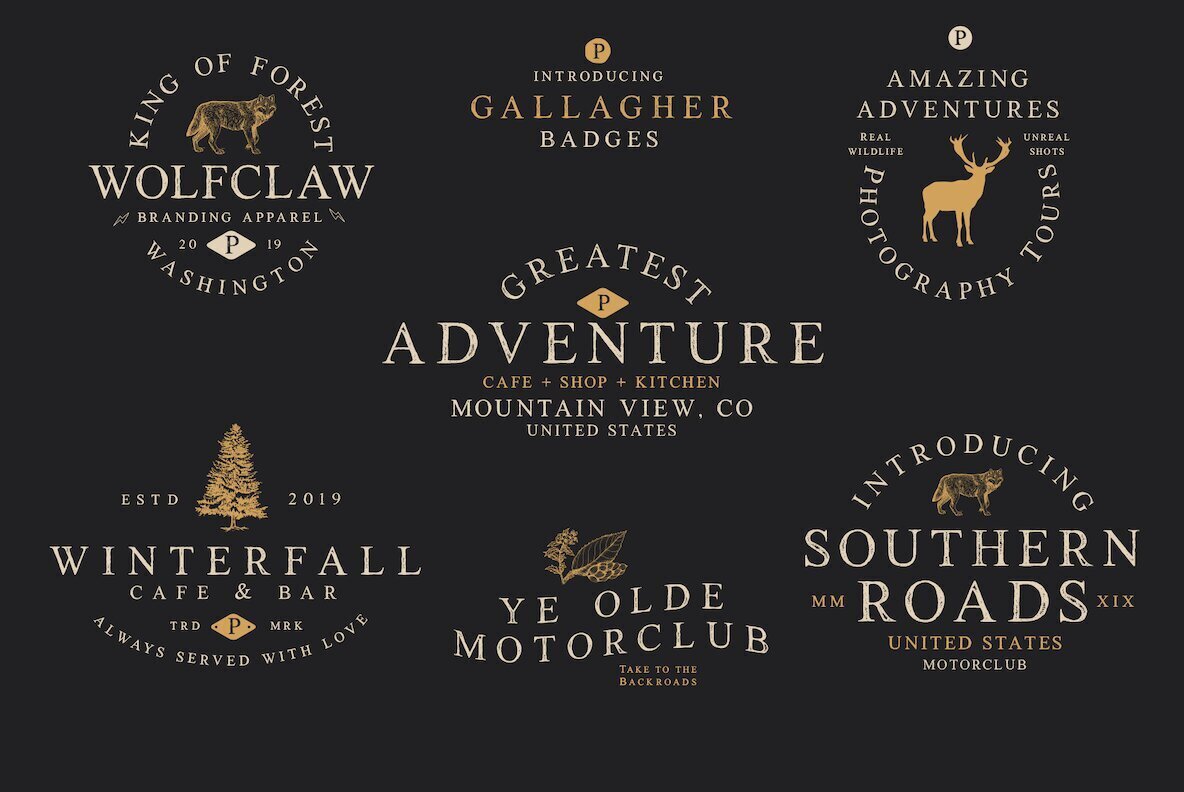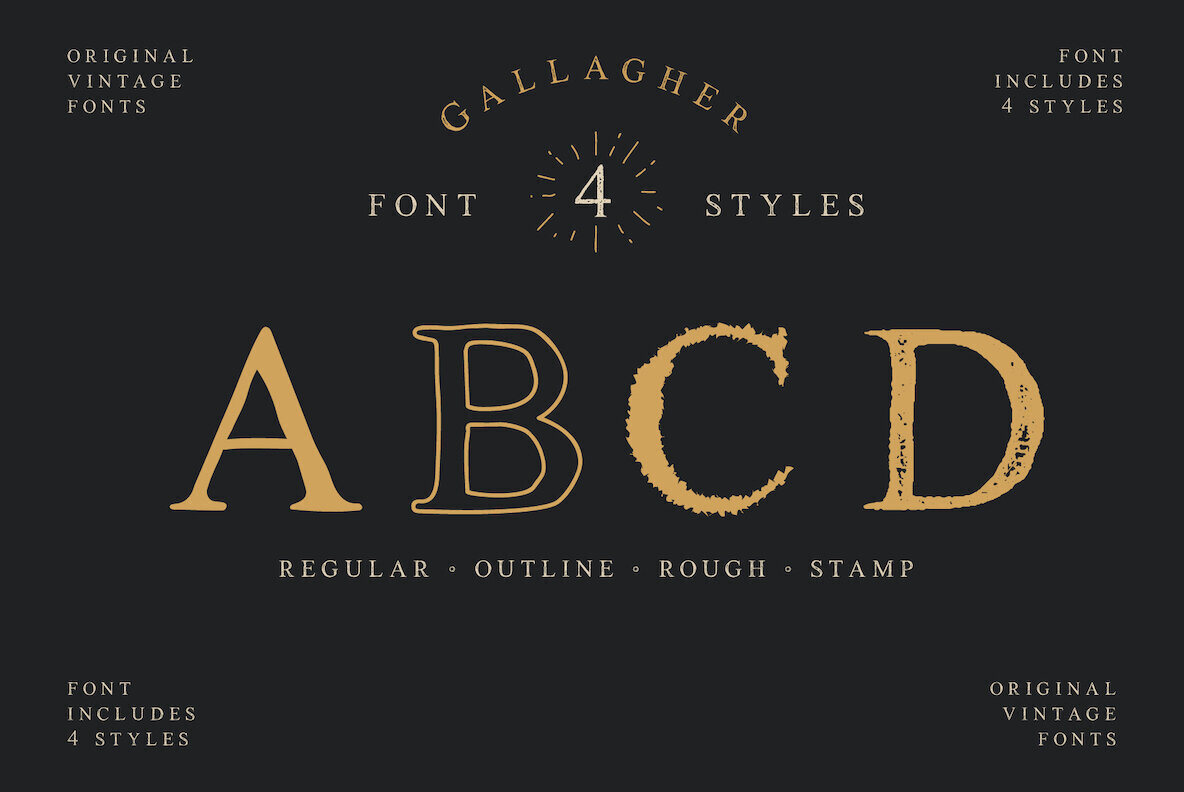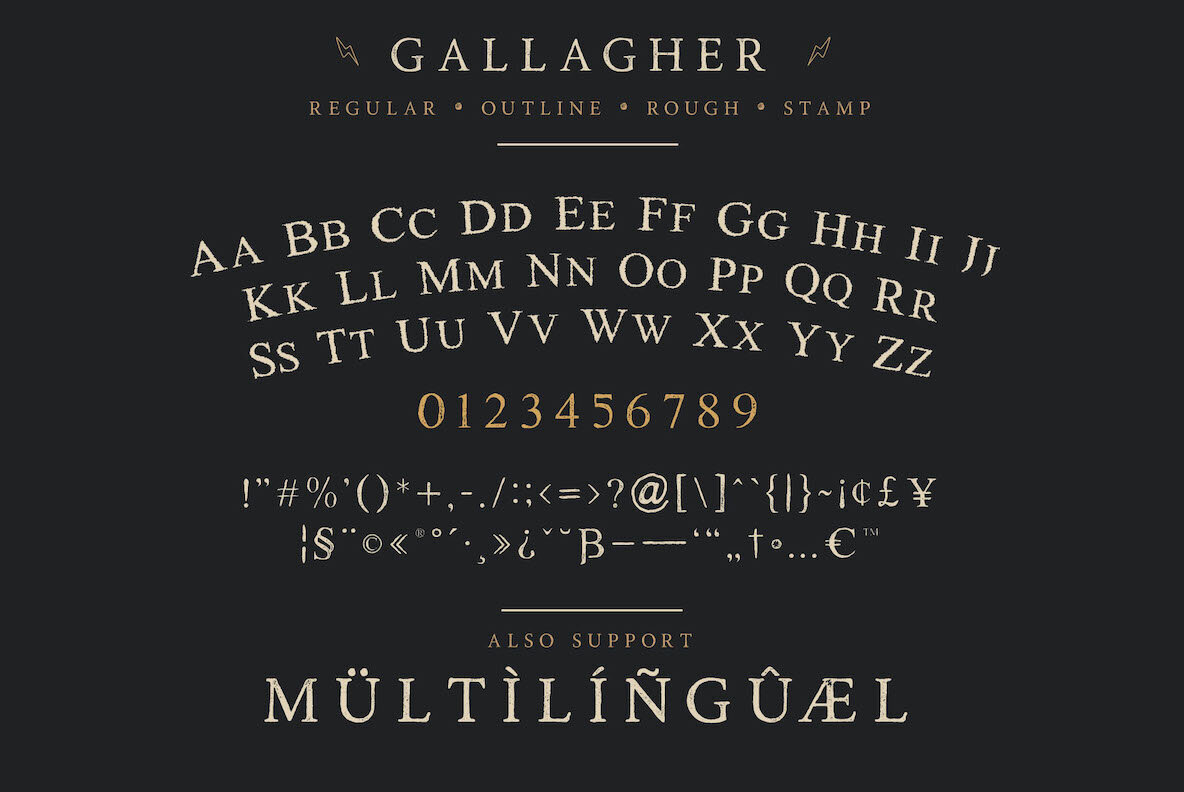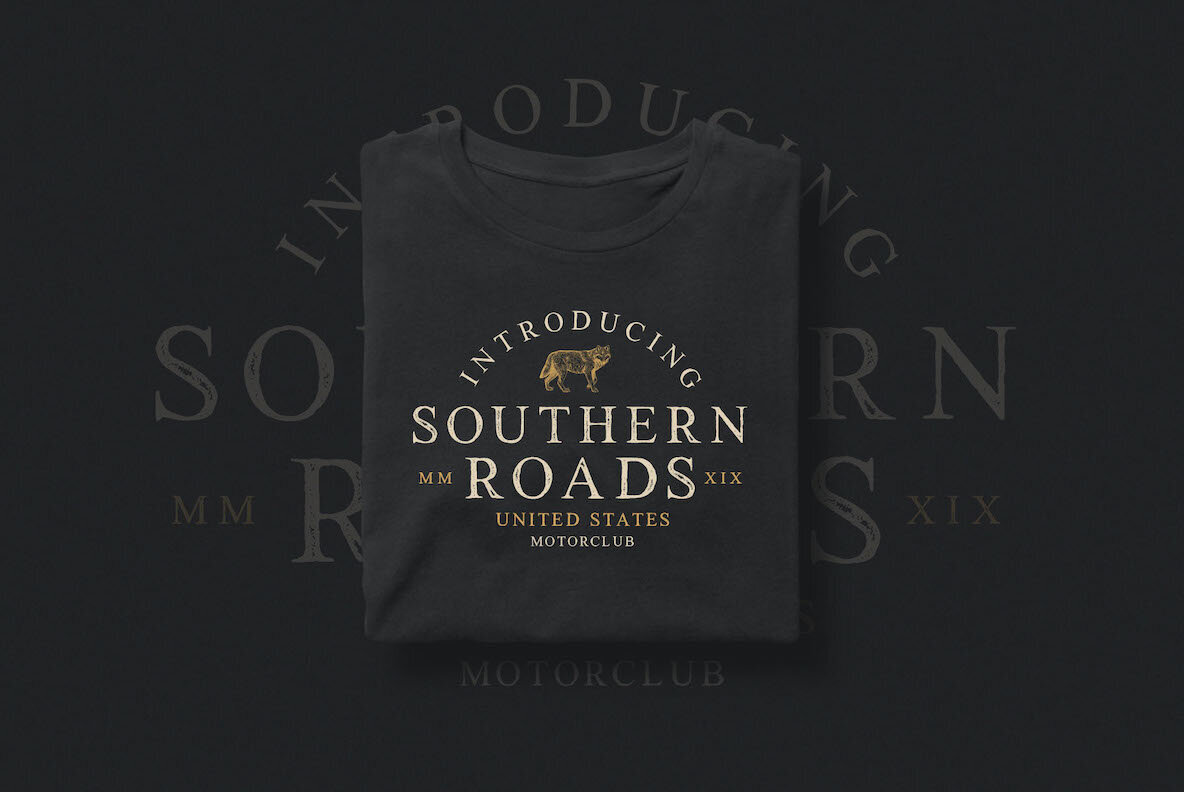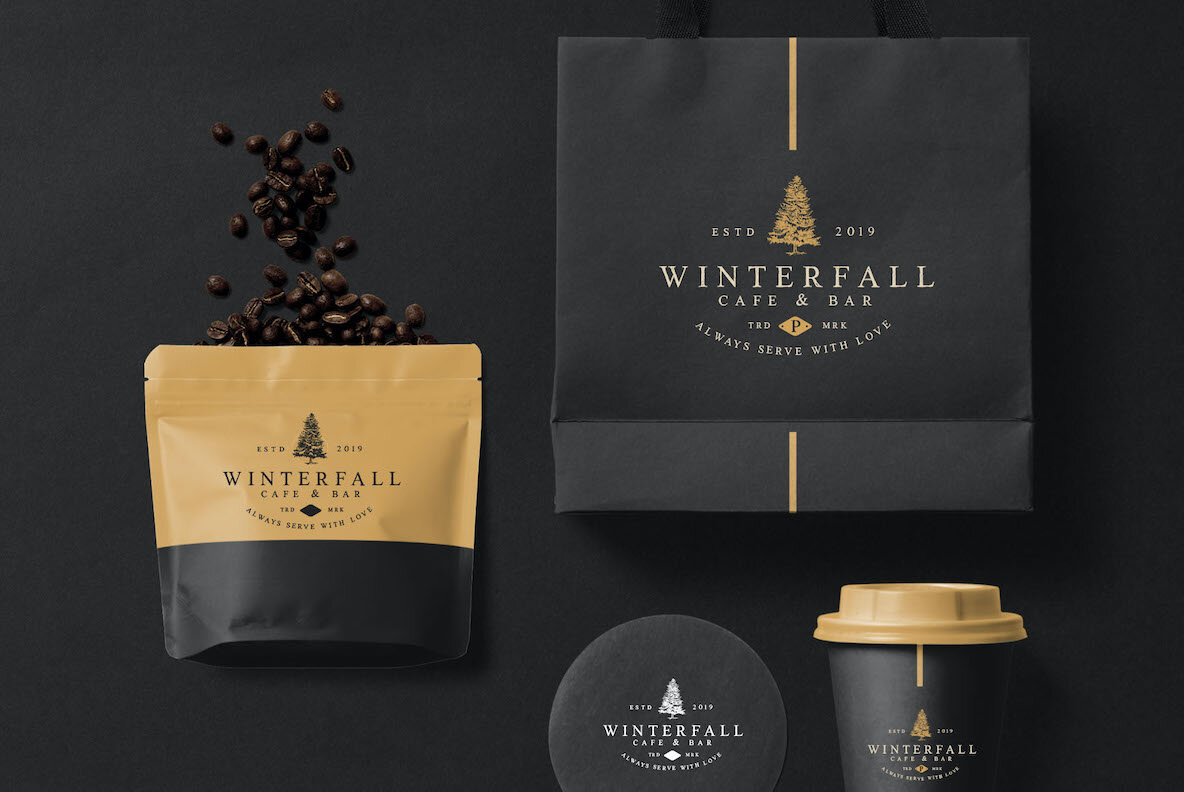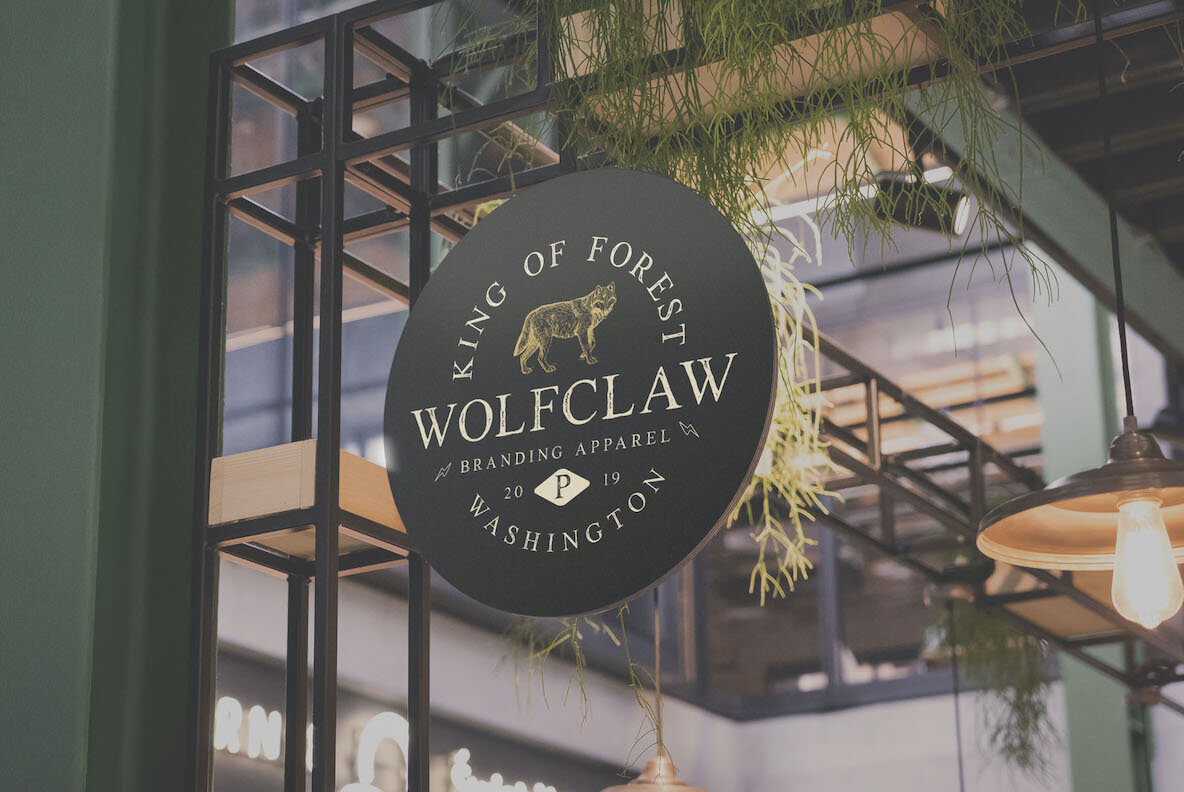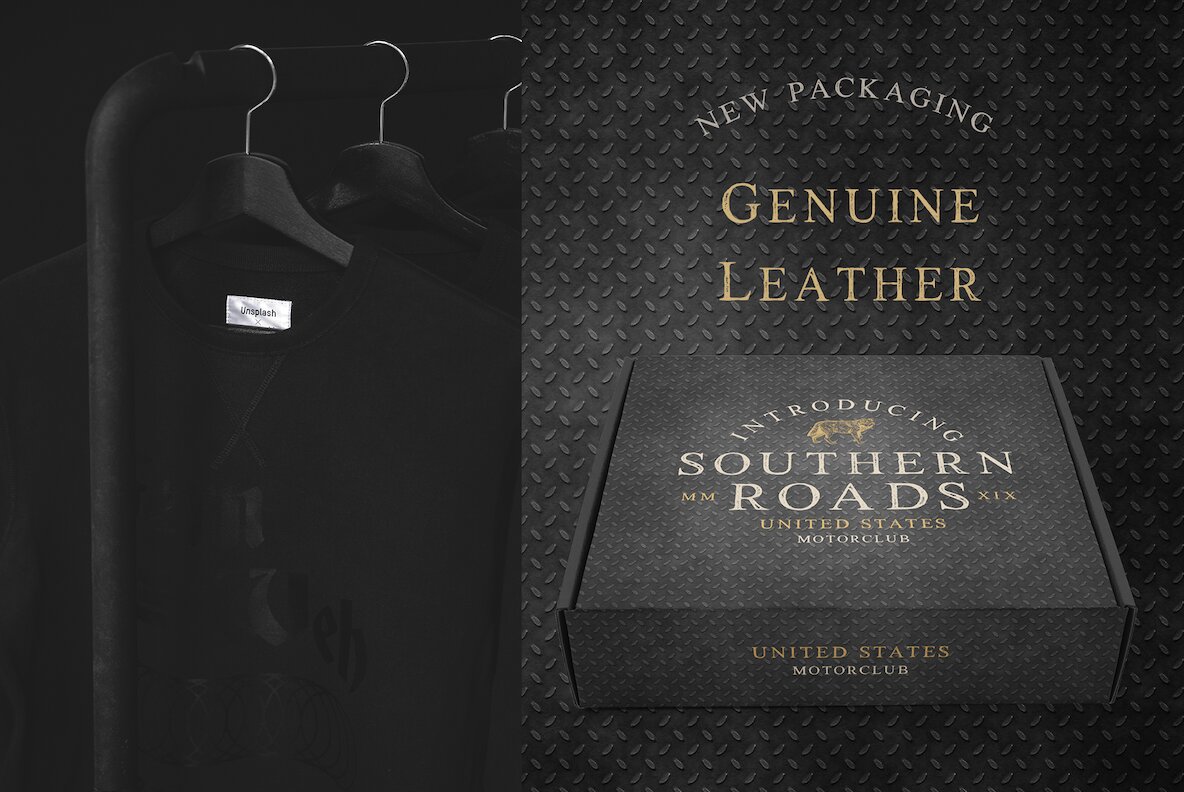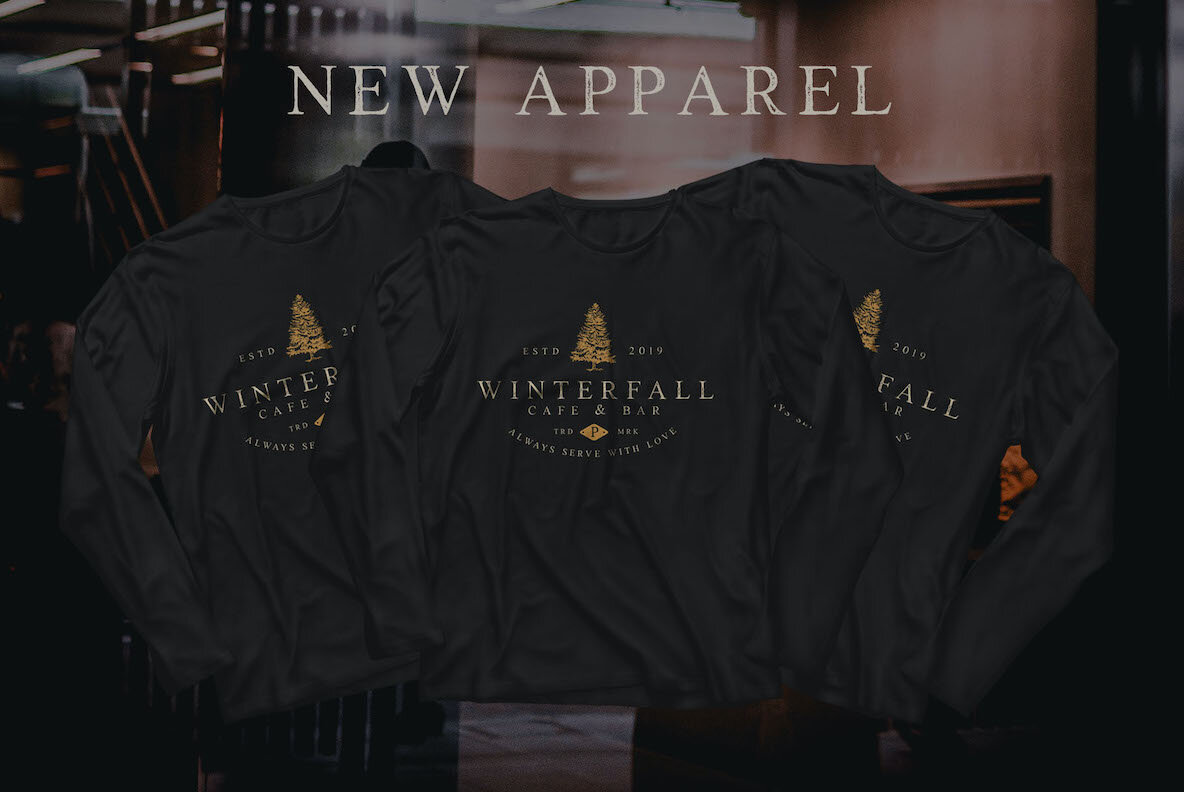
Gallagher Font
The Gallagher font by Surplus Type Co. exudes handcrafted charm with a vintage aesthetic that resonates across design projects. With its four distinctive styles—Regular, Rough, Stamp, and Outline—it fits seamlessly into vintage and industrial themes, allowing designers the flexibility to combine textures and elements as required. Each style in the Gallagher family includes both large and small capital letters alongside multilingual characters, broadening its application scope.Gallagher: A Vintage Font with Industrial Flair
Gallagher's distinct character and adaptability make it an essential tool for any designer seeking authenticity in their typographic expressions.